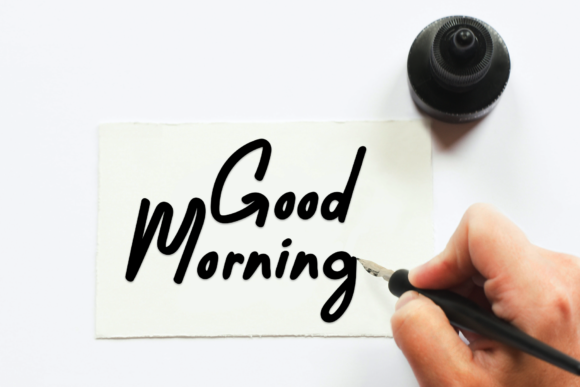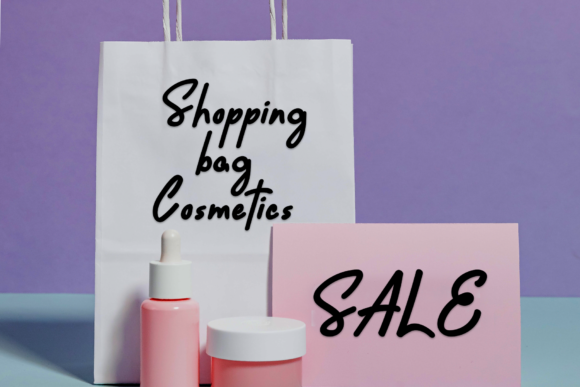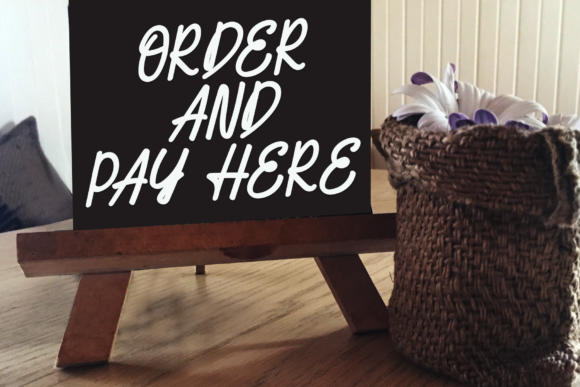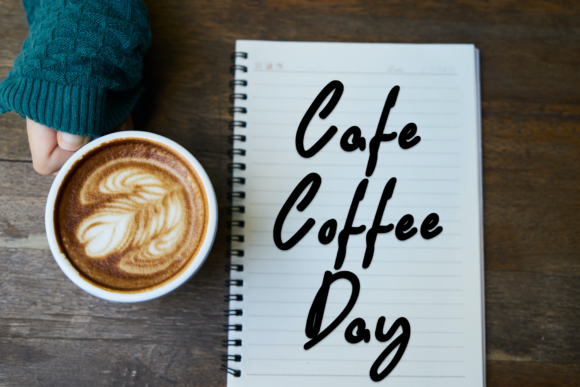
Coffee Break Font: The Perfect Addition to Your Design Arsenal
Are you a designer or crafter looking for a font that can add a touch of personality to your designs? Look no further than the Coffee Break Font. This sweet and simple handwritten font is perfect for a variety of design projects, from wedding invitations to greeting cards, and everything in between.
What is Coffee Break Font?
Coffee Break Font is a beautiful, handwritten font that is designed to bring a personal touch to your designs. Its sweet and simple style makes it perfect for a wide range of projects, from formal events like weddings to more casual designs like thank you cards and greeting cards.
Characteristics of Coffee Break Font
Coffee Break Font has several characteristics that make it a great addition to your design arsenal. Some of its key features include:
- Handwritten style: Coffee Break Font has a beautiful, handwritten style that gives it a personal and unique touch.
- Simple and elegant: The font is simple and elegant, making it perfect for a wide range of designs.
- Versatile: Coffee Break Font can be used for a variety of design projects, from wedding invitations to greeting cards, and everything in between.
- Easy to read: The font is easy to read, making it perfect for designs that require a clear and concise message.
Uses of Coffee Break Font
Coffee Break Font can be used for a wide range of design projects, including:
- Wedding invitations: The font’s elegant and sophisticated style makes it perfect for wedding invitations and other formal event designs.
- Thank you cards: Coffee Break Font’s sweet and simple style makes it perfect for thank you cards and other personal correspondence.
- Greeting cards: The font’s versatility makes it perfect for a wide range of greeting cards, from birthday cards to holiday cards.
- Logos: Coffee Break Font can also be used to create unique and personalized logos for businesses and brands.
Why Choose Coffee Break Font?
There are many reasons why designers and crafters choose Coffee Break Font for their design projects. Some of the benefits of using this font include:
- Unique and personalized: Coffee Break Font’s handwritten style gives designs a unique and personalized touch.
- Versatile: Coffee Break Font can be used for a wide range of design projects, making it a great addition to your design arsenal.
Tips for Using Coffee Break Font
Here are a few tips for using Coffee Break Font in your design projects:
- Use it for headings and titles: Coffee Break Font’s elegant and sophisticated style makes it perfect for headings and titles.
- Pair it with other fonts: The font can be paired with other fonts to create a unique and visually appealing design.
- Experiment with different colors: Coffee Break Font looks great in a variety of colors, so don’t be afraid to experiment and find the perfect color for your design.
Coffee Break Font is a sweet and simple handwritten font that is perfect for a wide range of design projects. Its elegant and sophisticated style makes it perfect for wedding invitations, thank you cards, greeting cards, logos, and more. With its versatility, ease of use, and high-quality design, Coffee Break Font is a great addition to any designer’s or crafter’s arsenal.